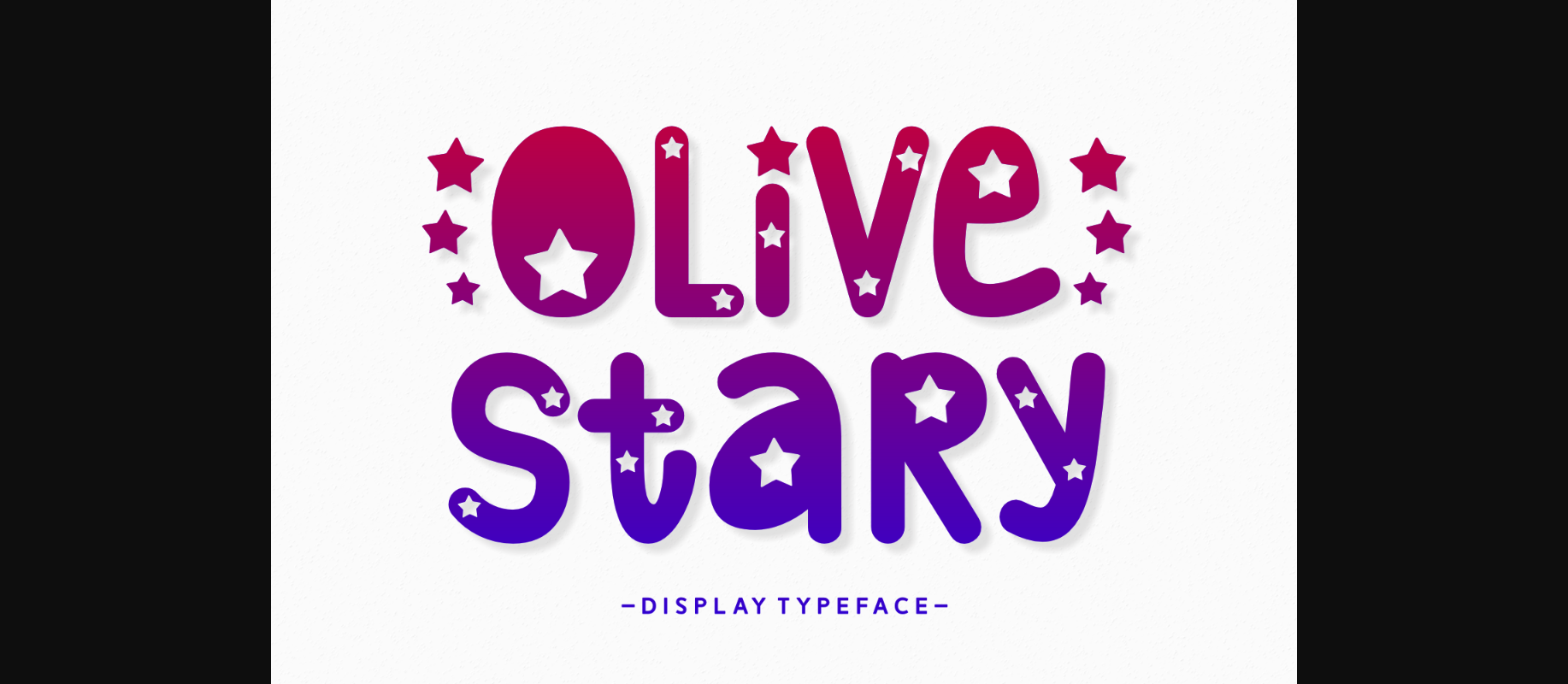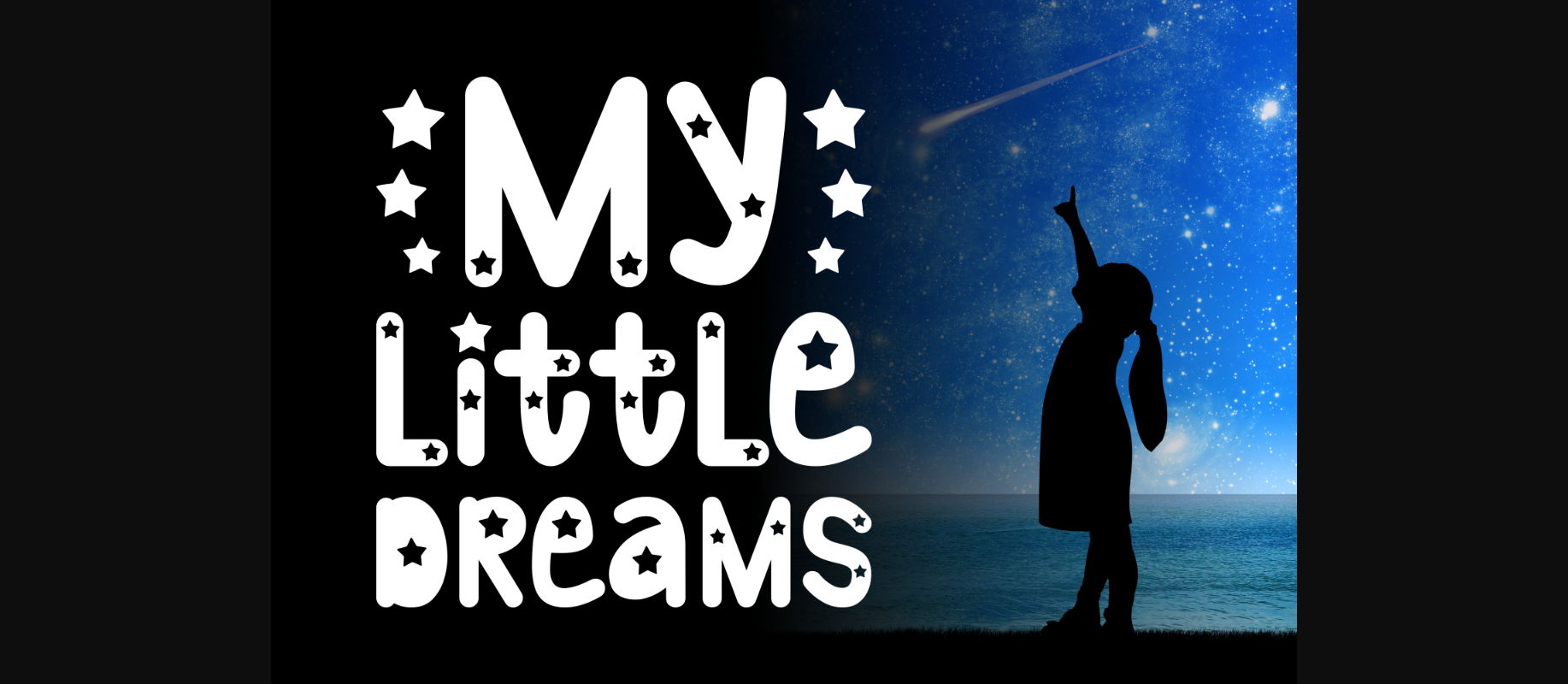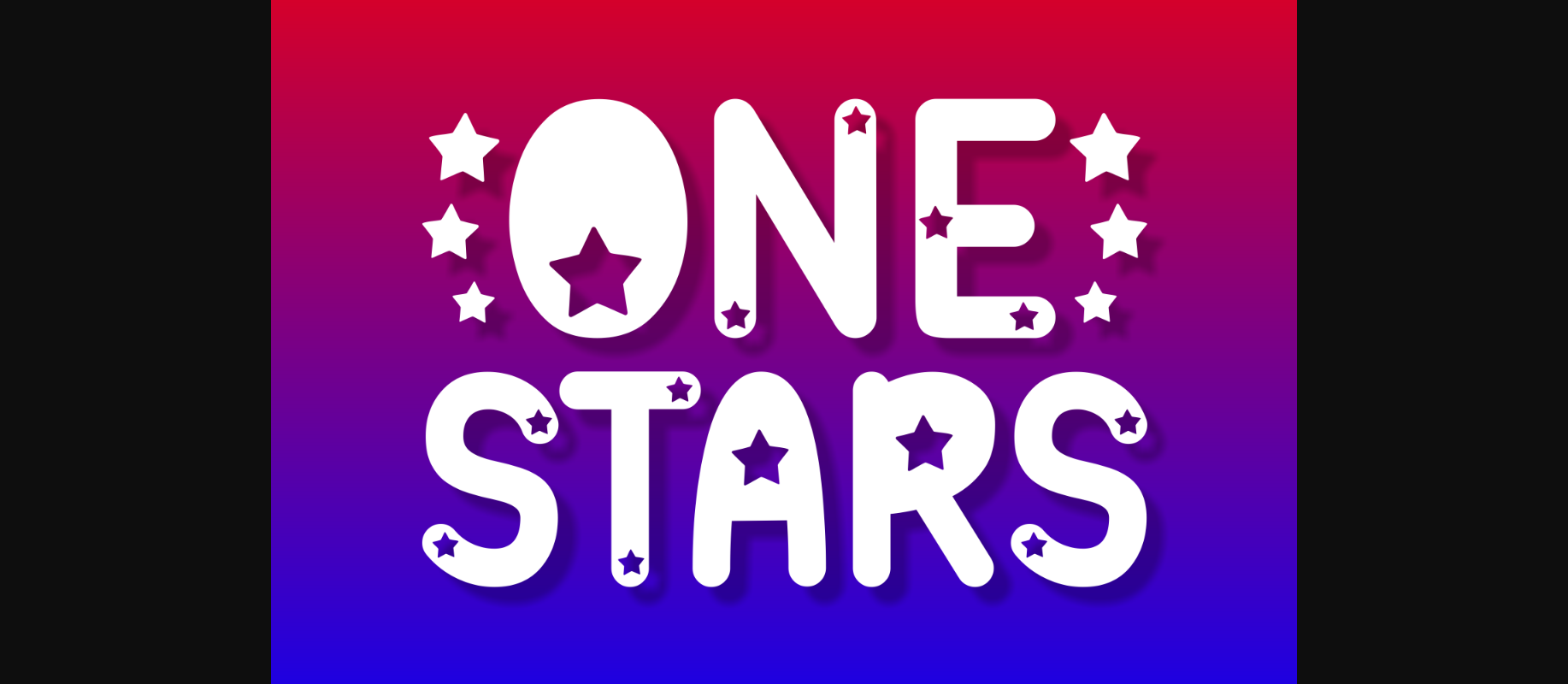
About Olive Stary Font
Olive Stary is an incredibly cool and unique decorative font. This modern and bold vibe can easily apply to your favorite designs.